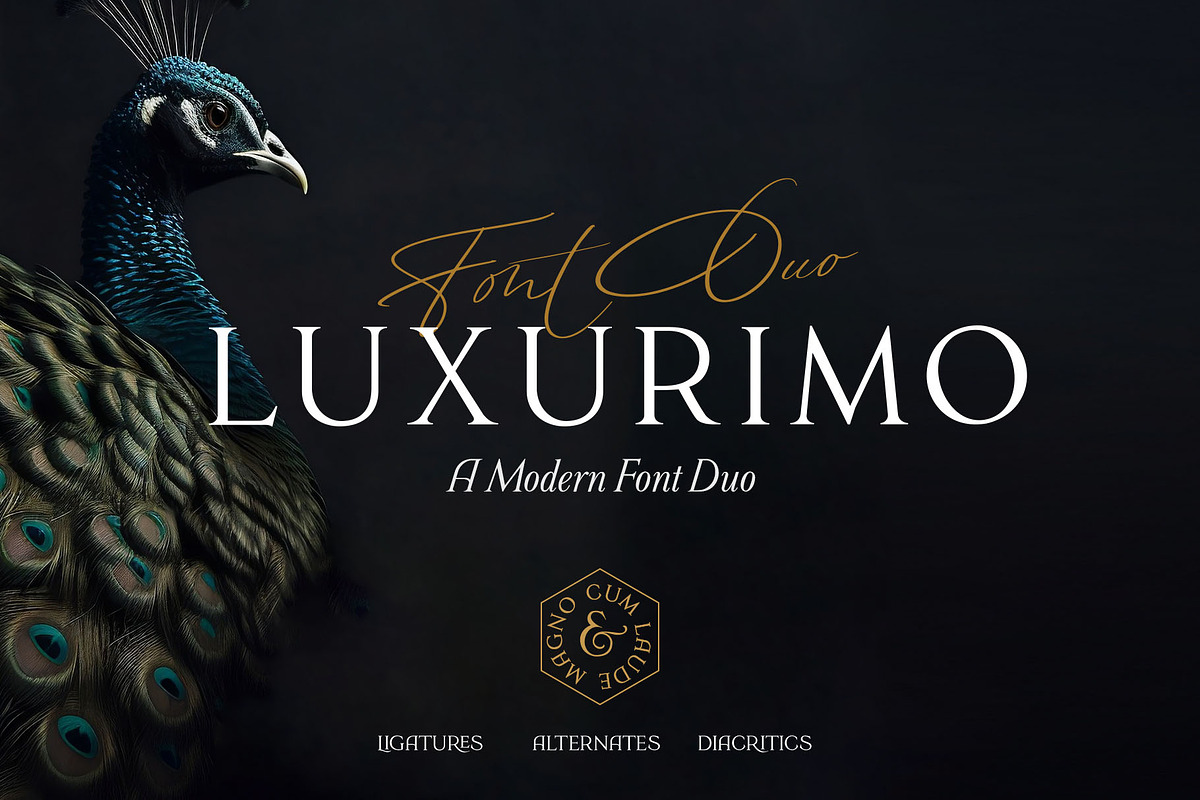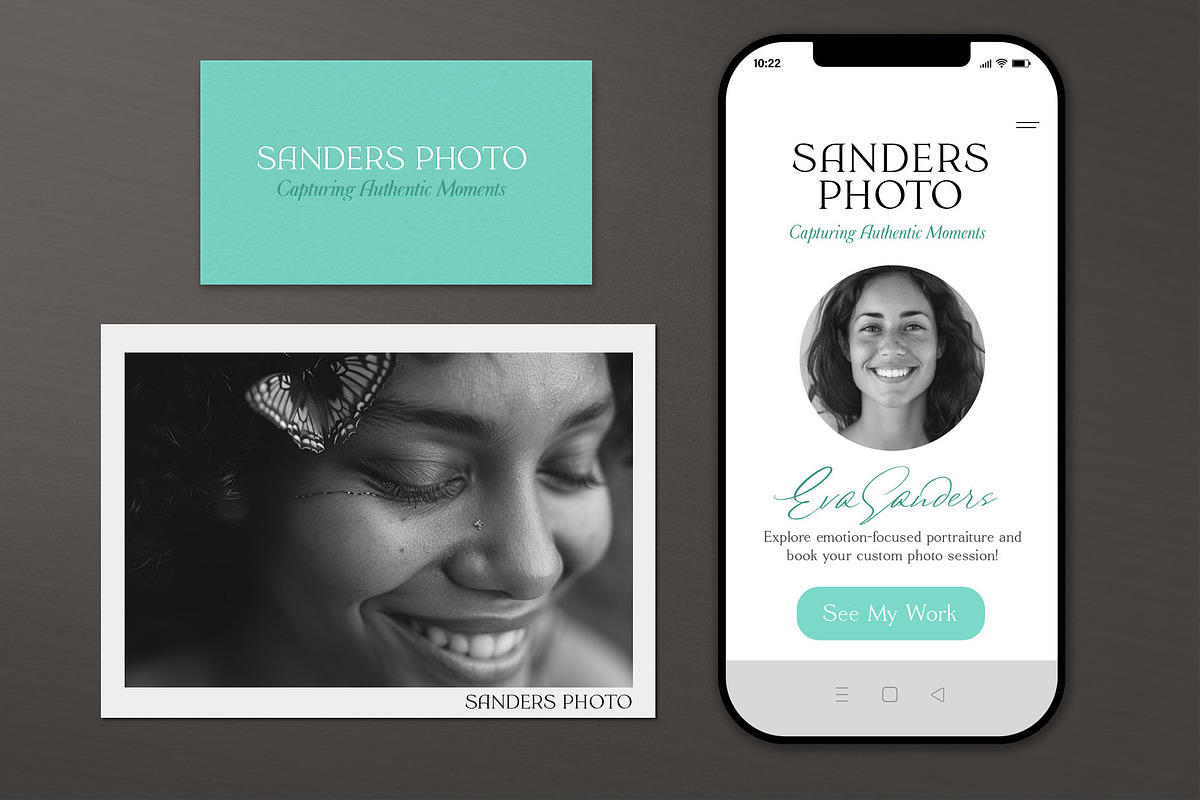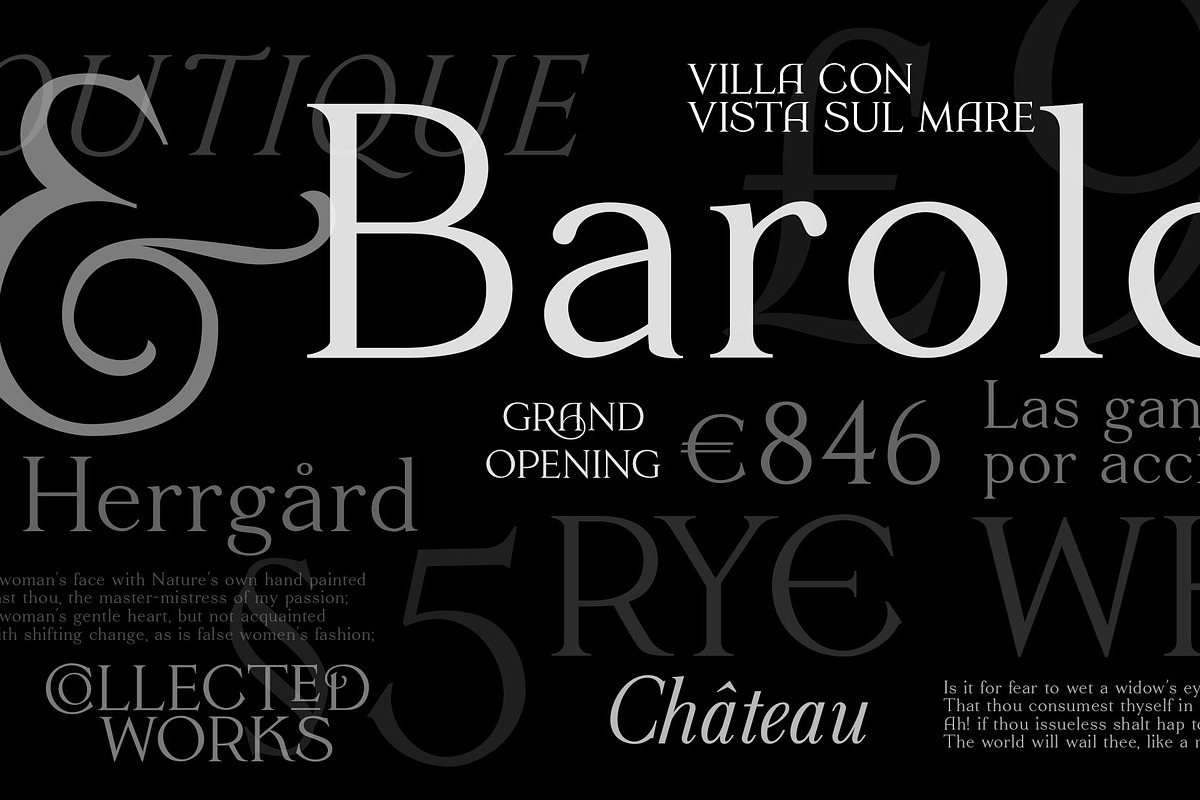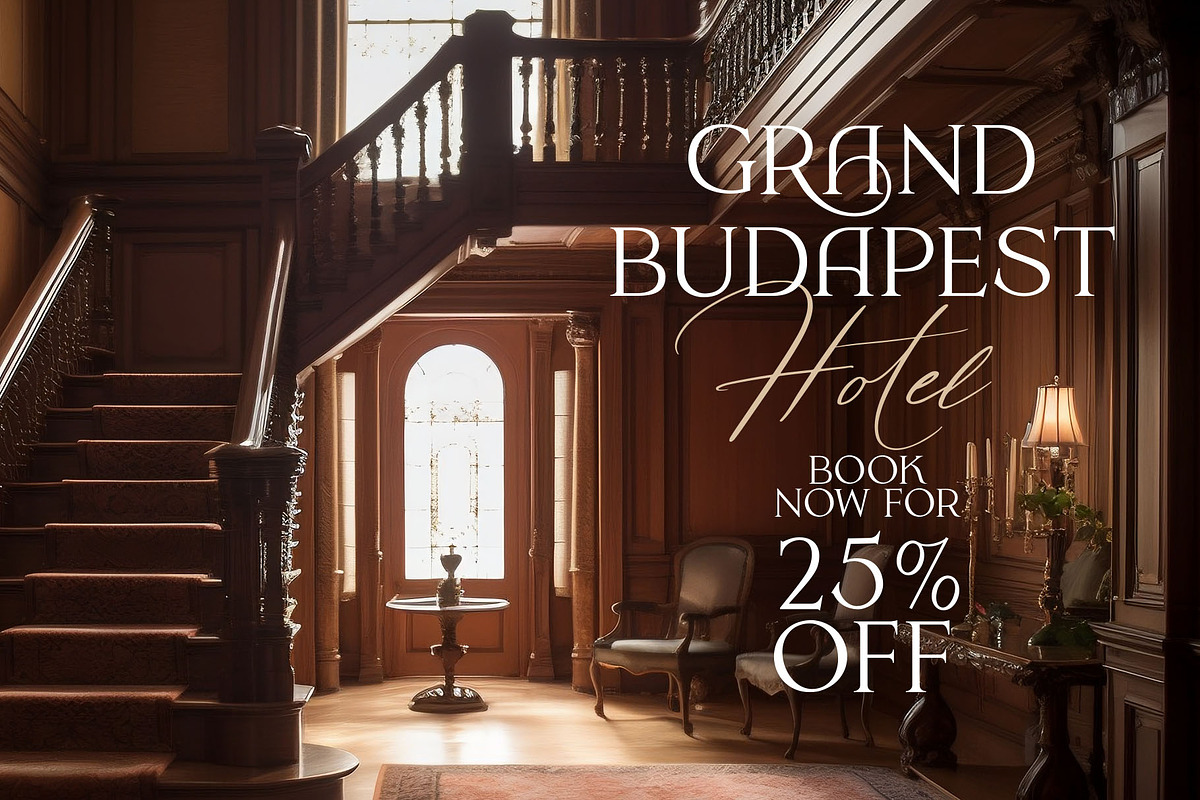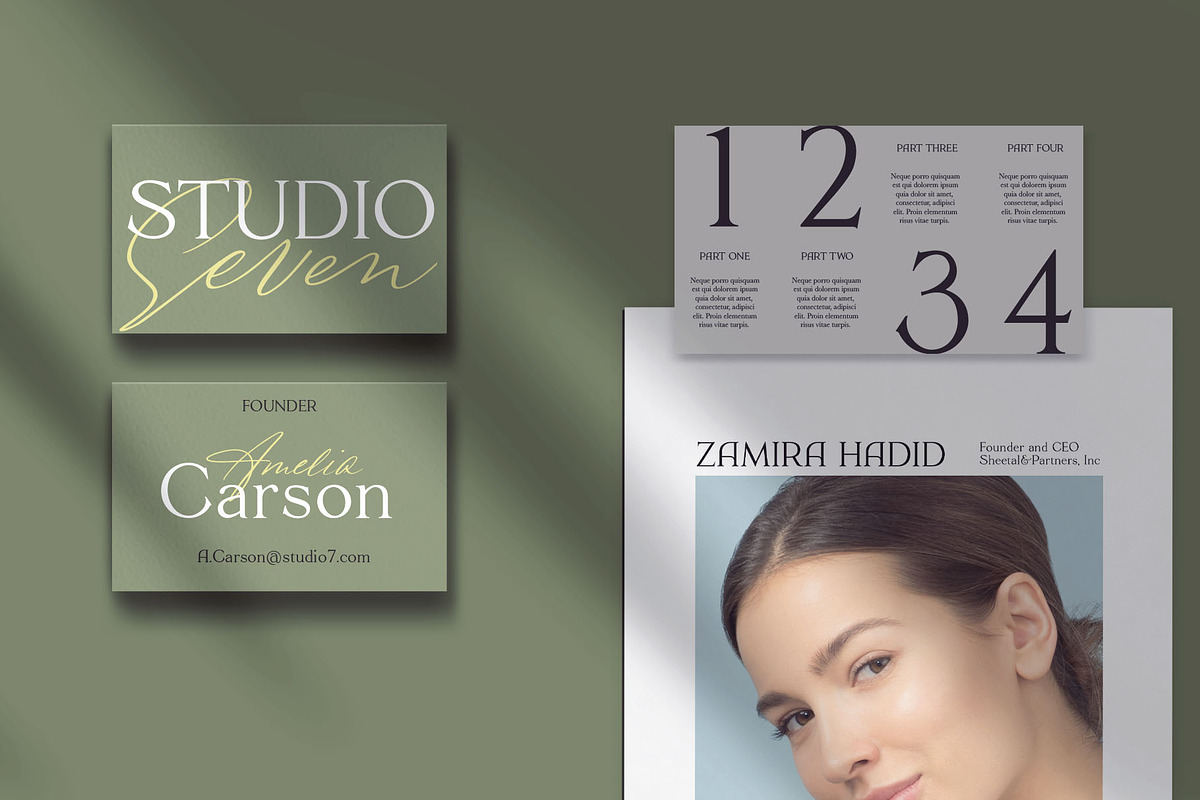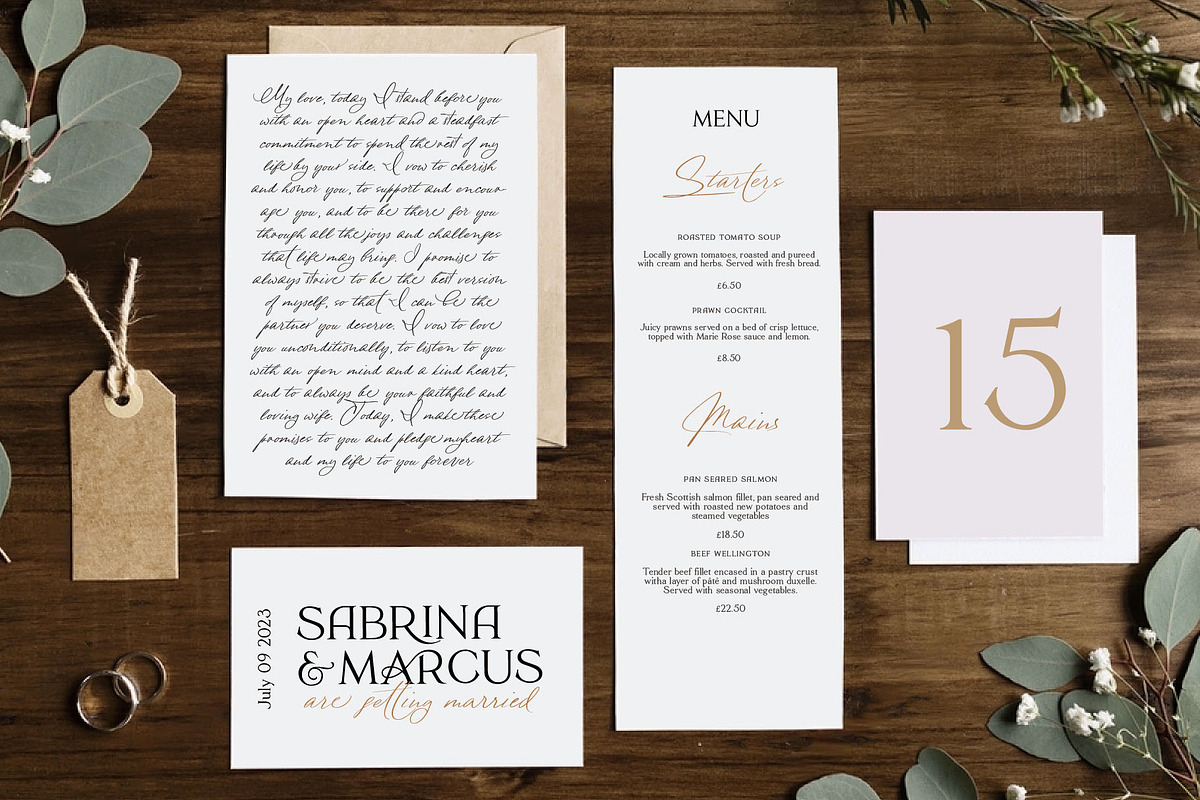
Luxurimo / Modern Font Duo
Introducing the Luxurimo font duo package - a stunning combination of a signature script font and a classic serif font that exude sophistication and luxury. The script font boasts signature-like capitals and a natural flow, while the serif font features beautiful ligatures. Ideal for designers and Etsy sellers who create quote posters, this package is perfect for branding, marketing materials, and wedding stationery. Use it to create visually stunning designs for social media, inspirational quotes, logos, invitations, and more. The Luxurimo font duo package encapsulates the latest font duo trends and is perfect for anyone looking to create designs with a classical elegance aesthetic. You will get: